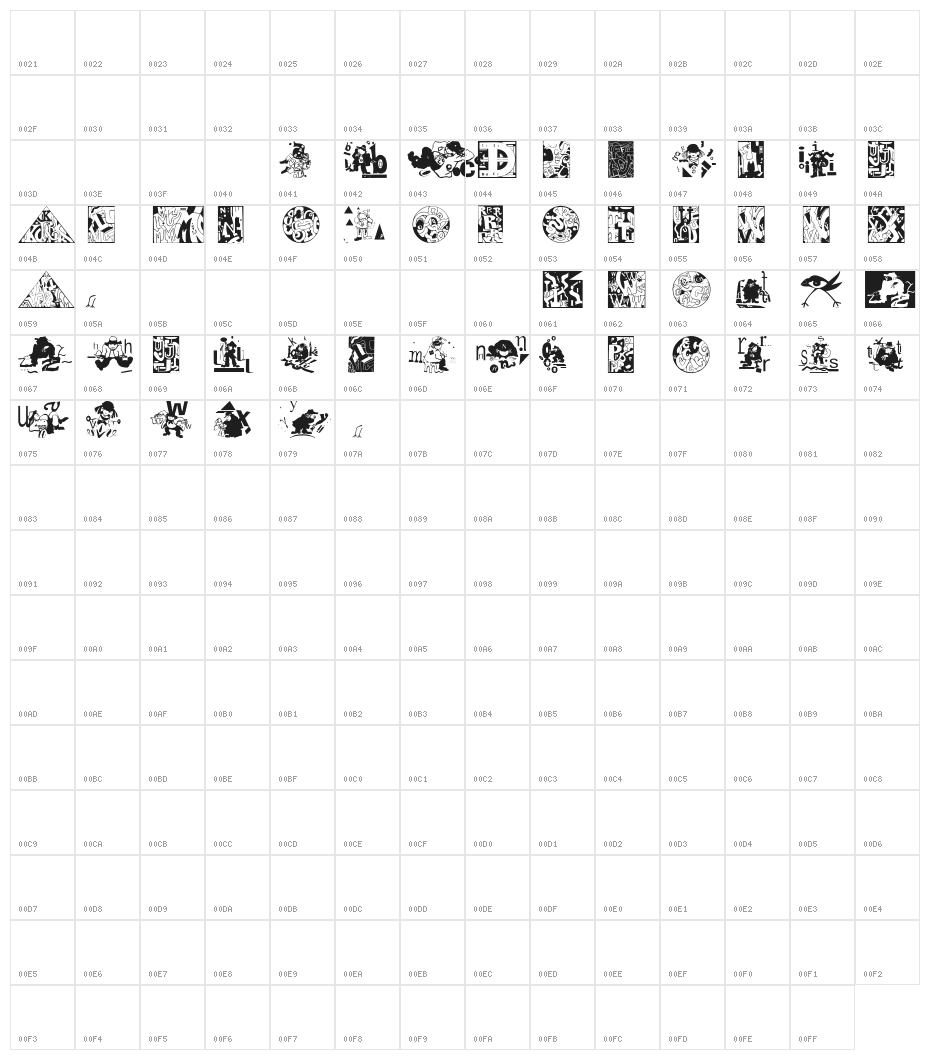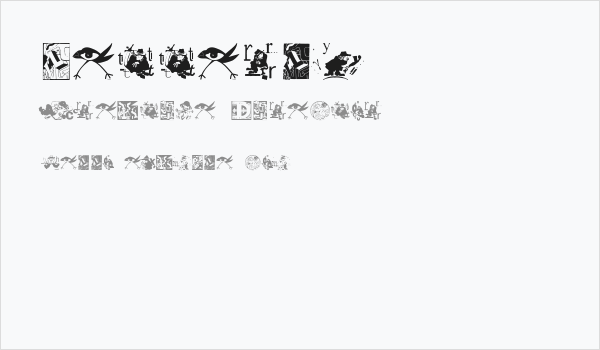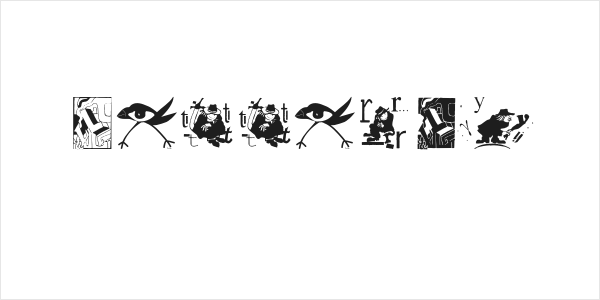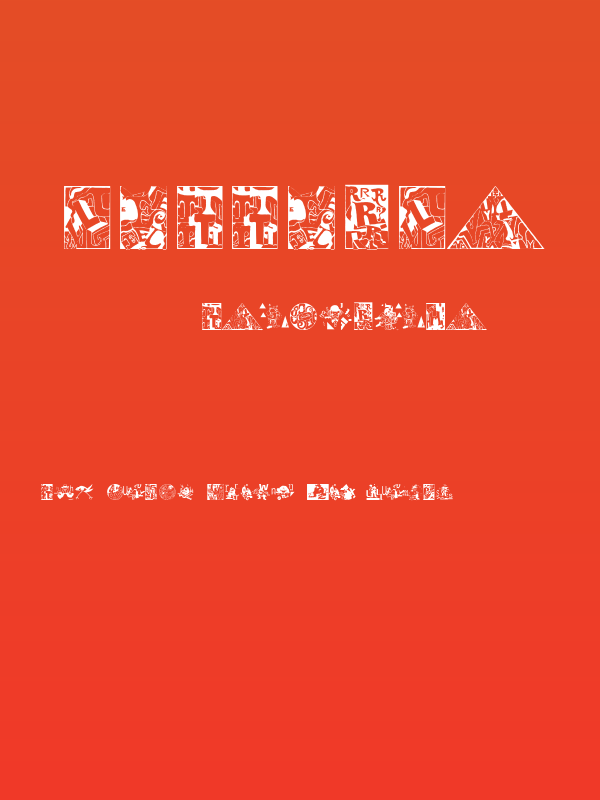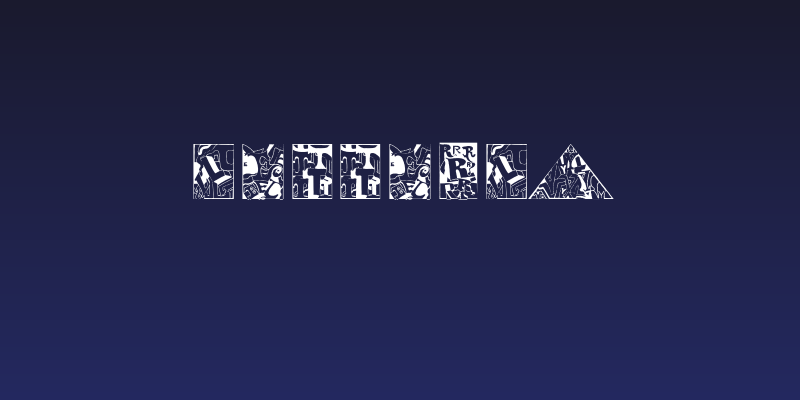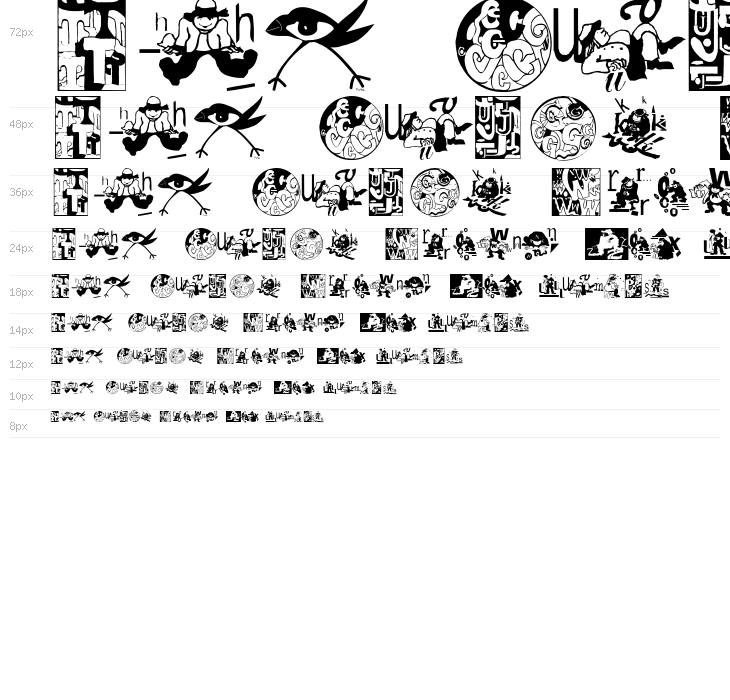
Letterly Font
Letterly Description
This font is a highly decorative and artistic typeface, featuring intricate designs within each letter. The characters are filled with whimsical illustrations and patterns, making each letter a unique piece of art. The uppercase and lowercase letters, as well as numbers and special characters, are all adorned with detailed imagery, creating a playful and imaginative visual experience. This font is not suited for body text due to its complexity but is perfect for creative projects where a bold, artistic statement is desired.
| Proposed Projects | Ideal for creative projects such as posters, album covers, greeting cards, and artistic branding where a unique and eye-catching typeface is needed. |